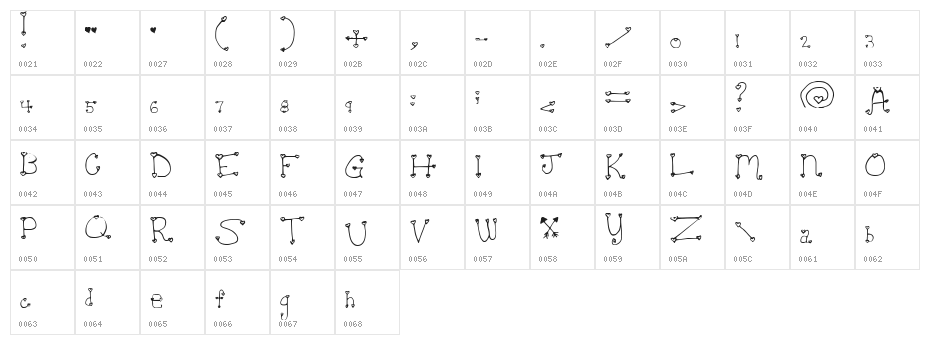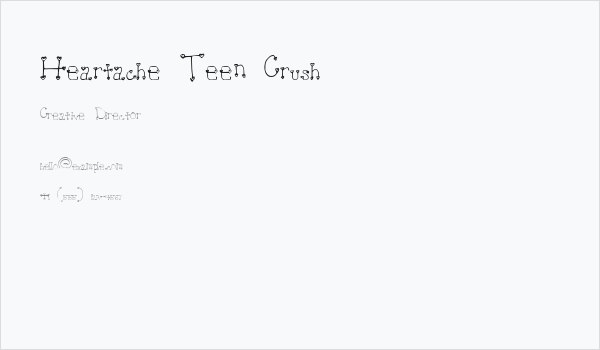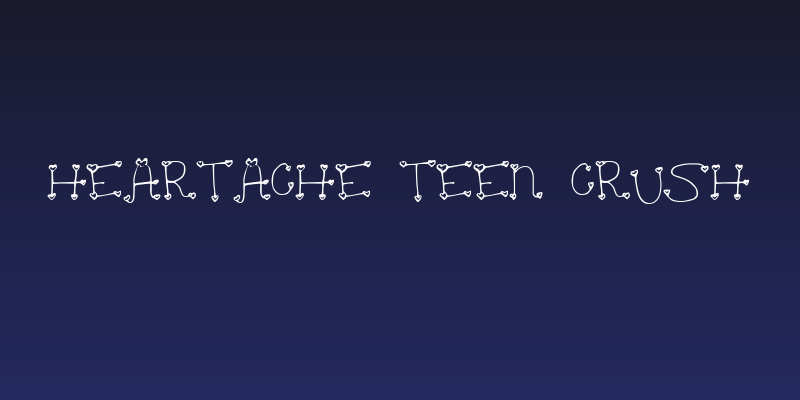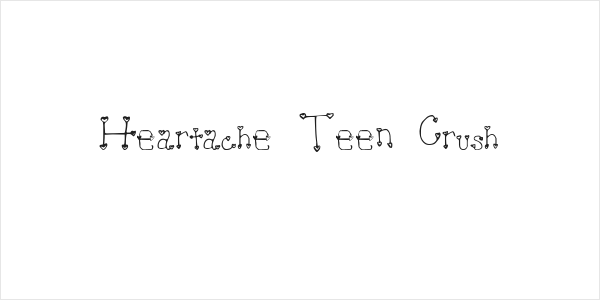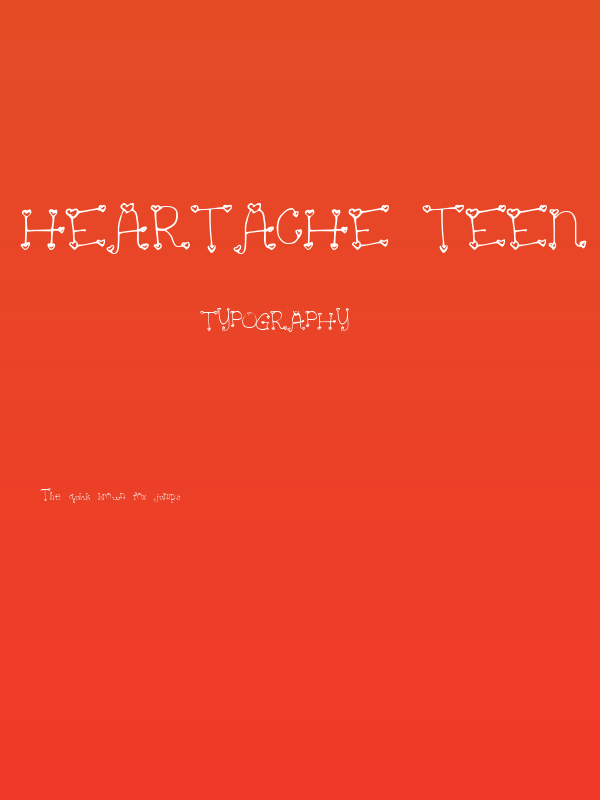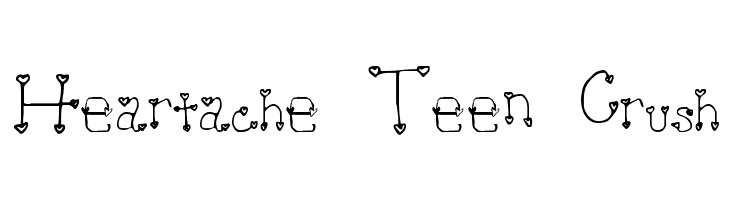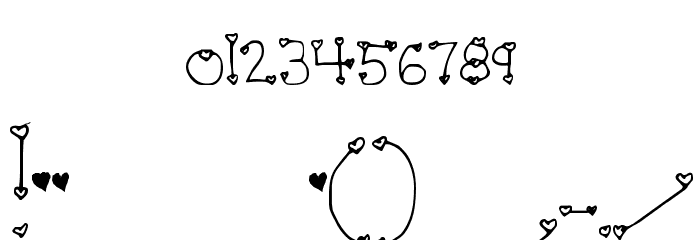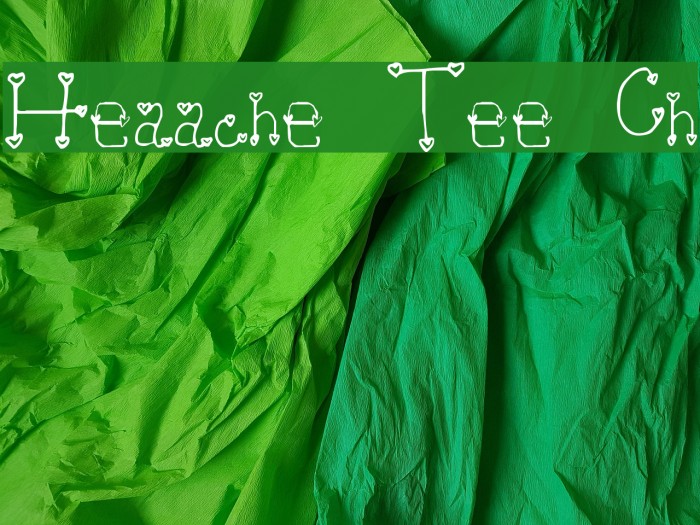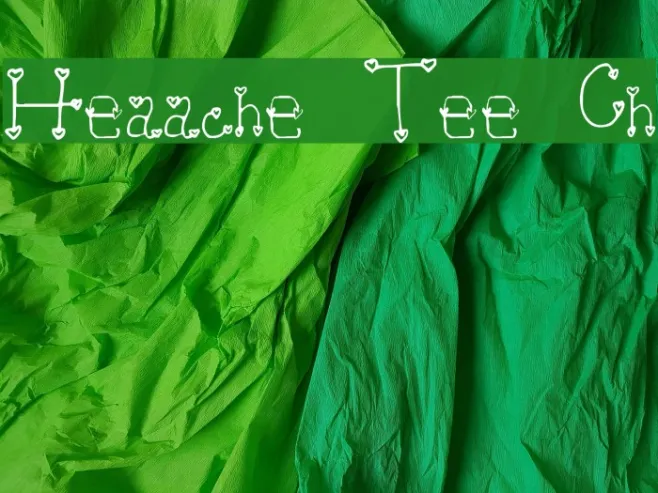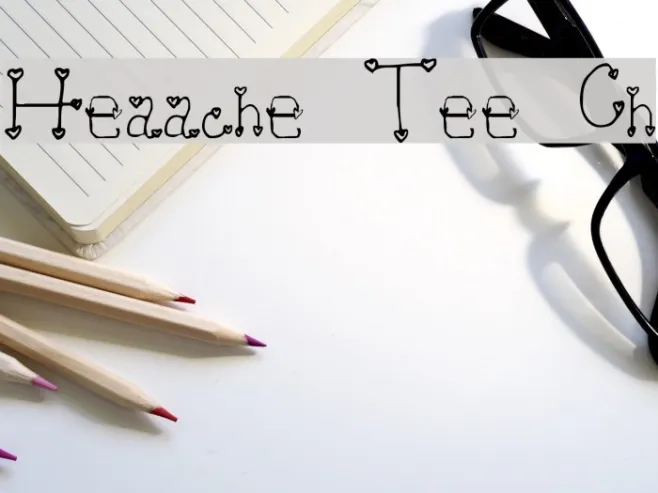
Heartache Teen Crush Font
| Gesamtstil | Whimsical, Playful |
| Anwendungsfall | Headlines, Logos, Invitations |
| Vorgeschlagene Projekte | Ideal for greeting cards, invitations, romantic-themed designs, and playful branding projects. |